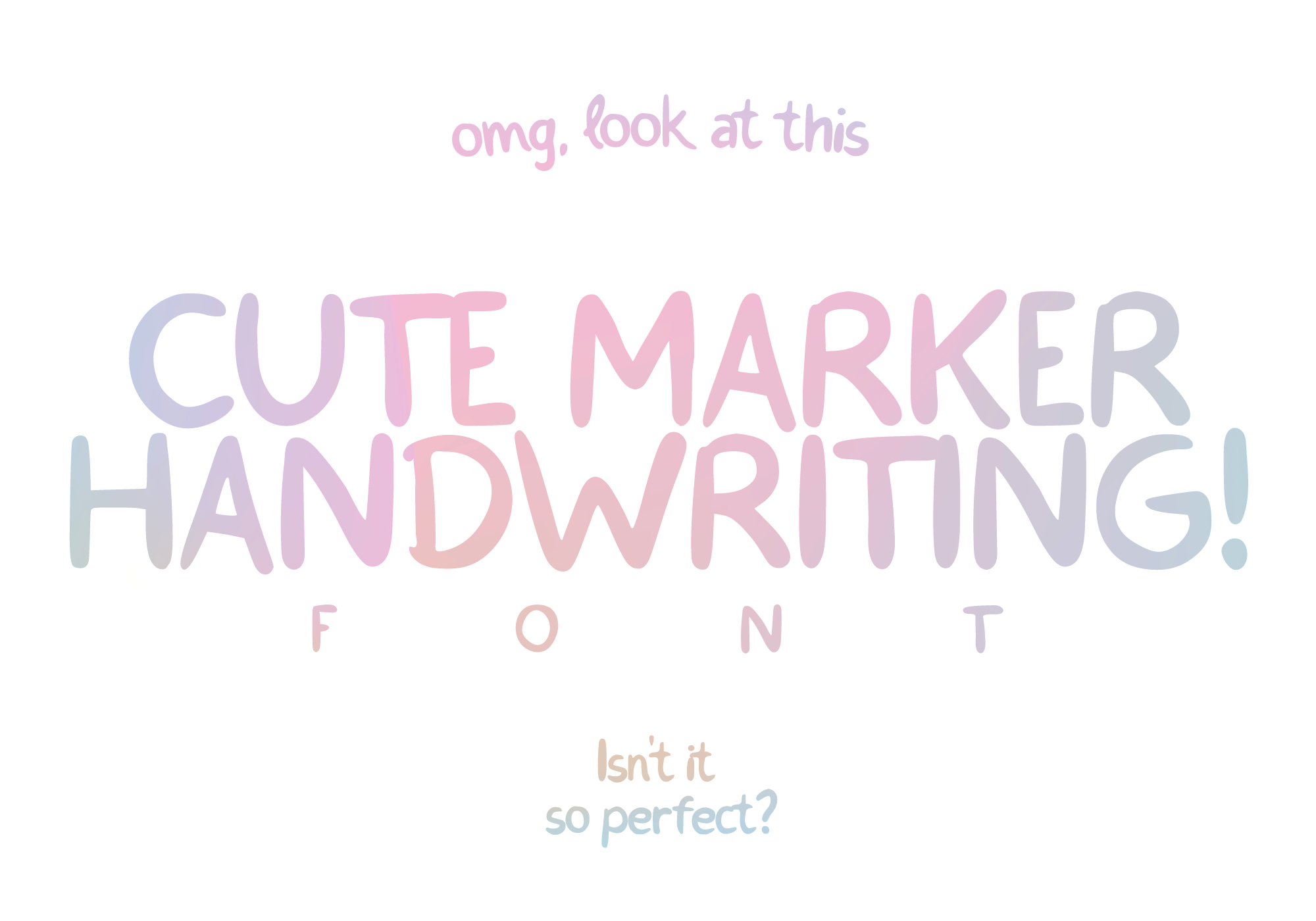
Cute Marker Handwriting Font
Cute Marker Handwriting Font // for any creative and fun use! ✨ Cute, smooth and there for you when you need comfort!
USED FOR
Great for your quote or text posts, thumbnail titles for your new youtube video, lists and also friendly for children's books!